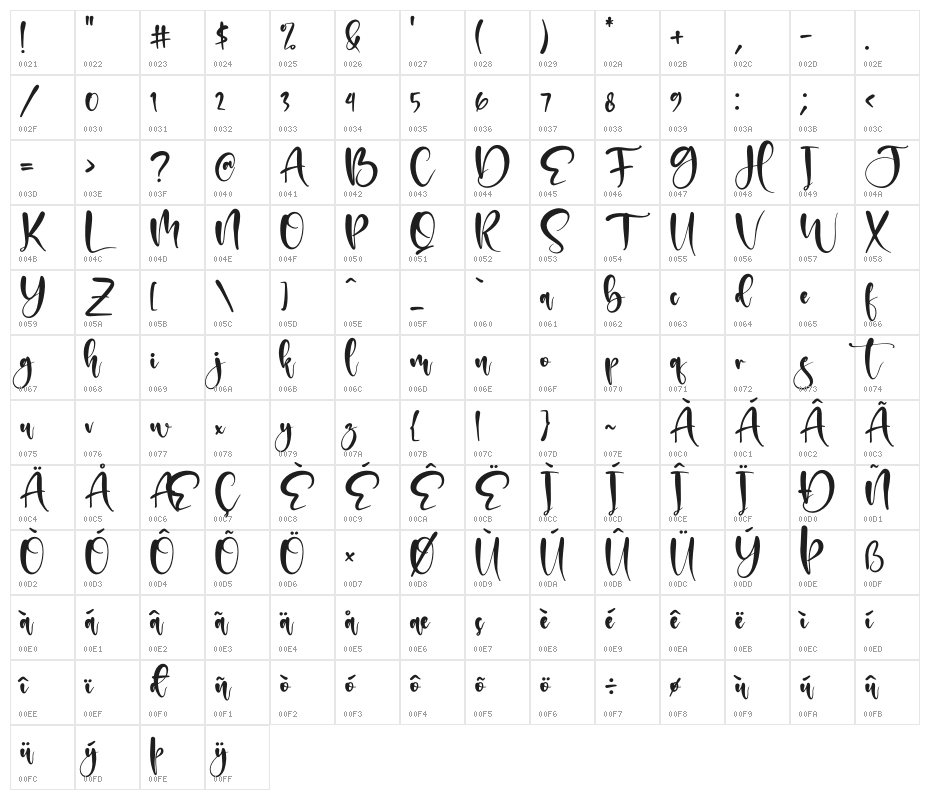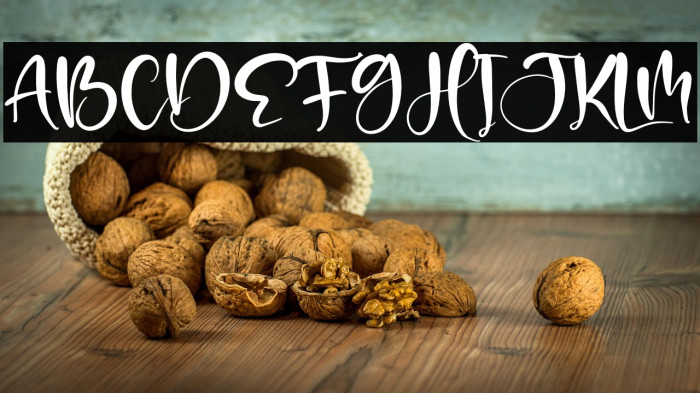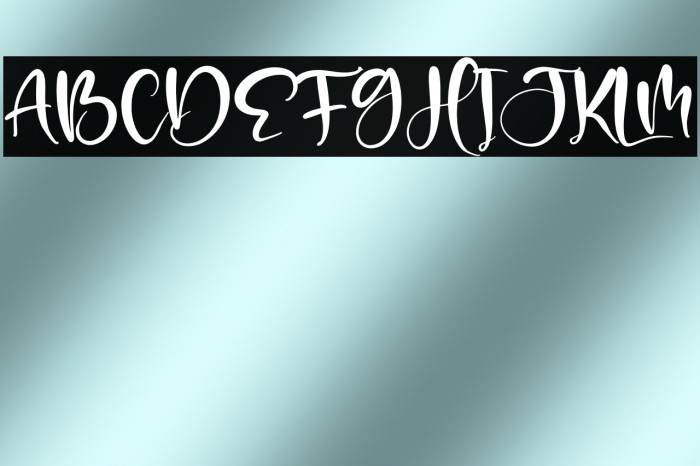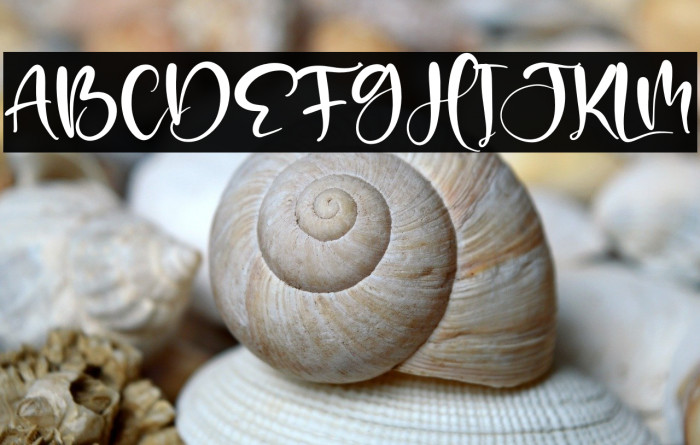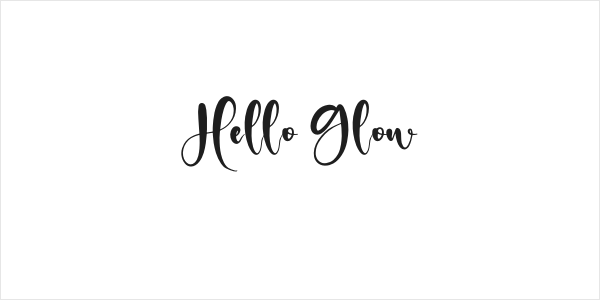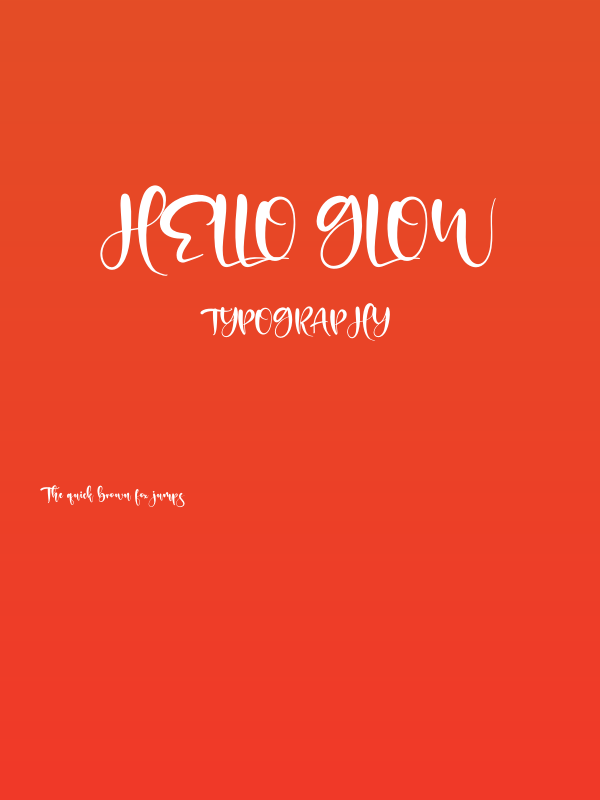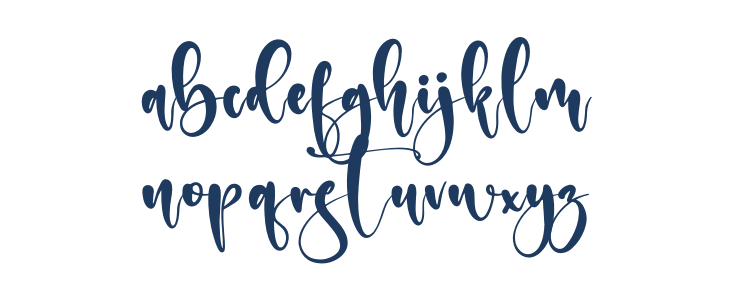
Hello Glow Font
Hello Glow Description
This font features a lively and expressive script style with a modern flair. The letters are characterized by their fluid, cursive strokes and varying thickness, giving it a dynamic and artistic appearance. The uppercase letters are bold and prominent, while the lowercase letters maintain a playful and whimsical touch. The numbers and special characters follow the same flowing style, ensuring consistency throughout. This font is ideal for projects that require a personal and creative touch, such as invitations, greeting cards, or branding materials. Its unique style makes it stand out, adding a touch of elegance and personality to any design.
| Use Case | Logos, Headlines, Decorative text |
| Proposed Projects | Ideal for invitations, greeting cards, branding materials, and creative projects. |